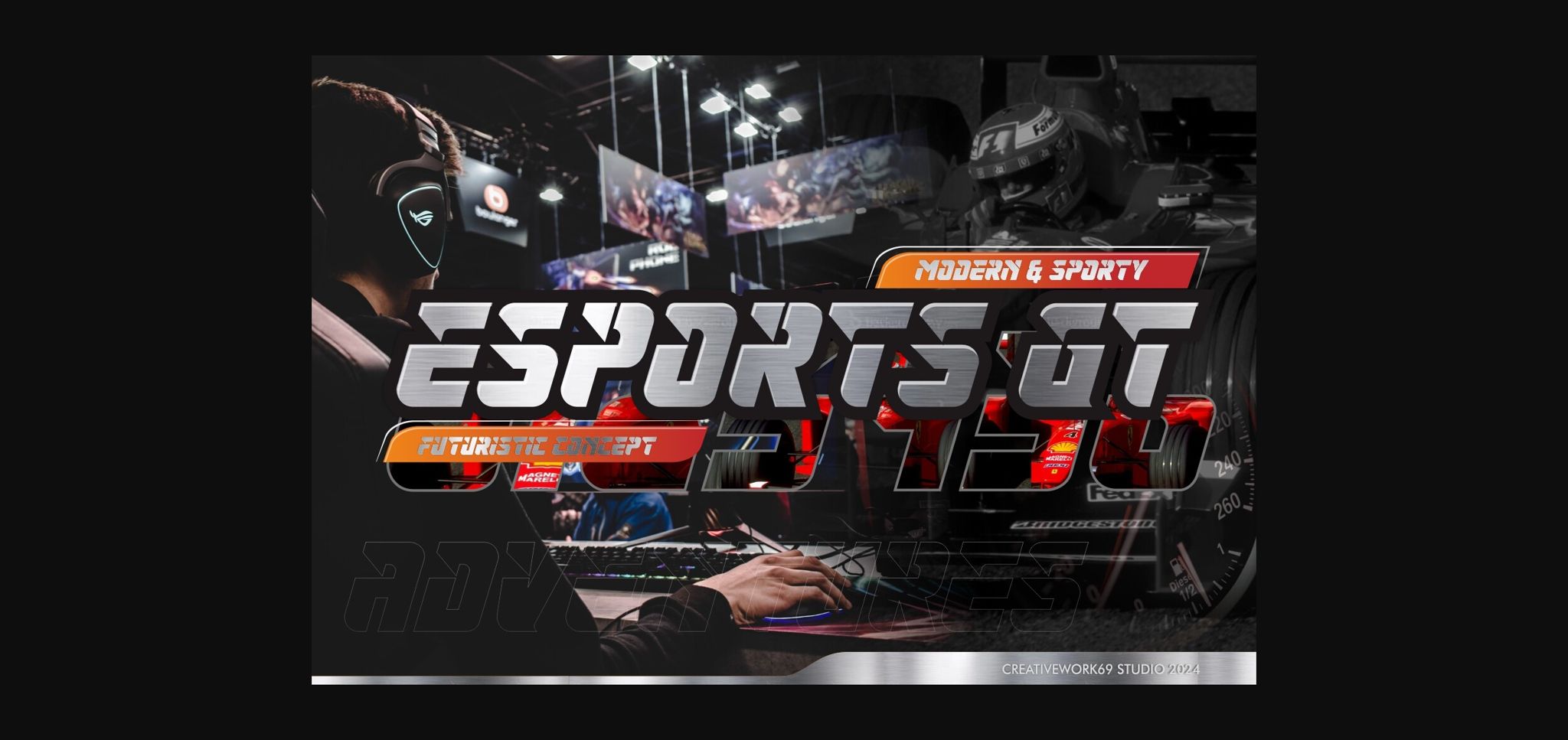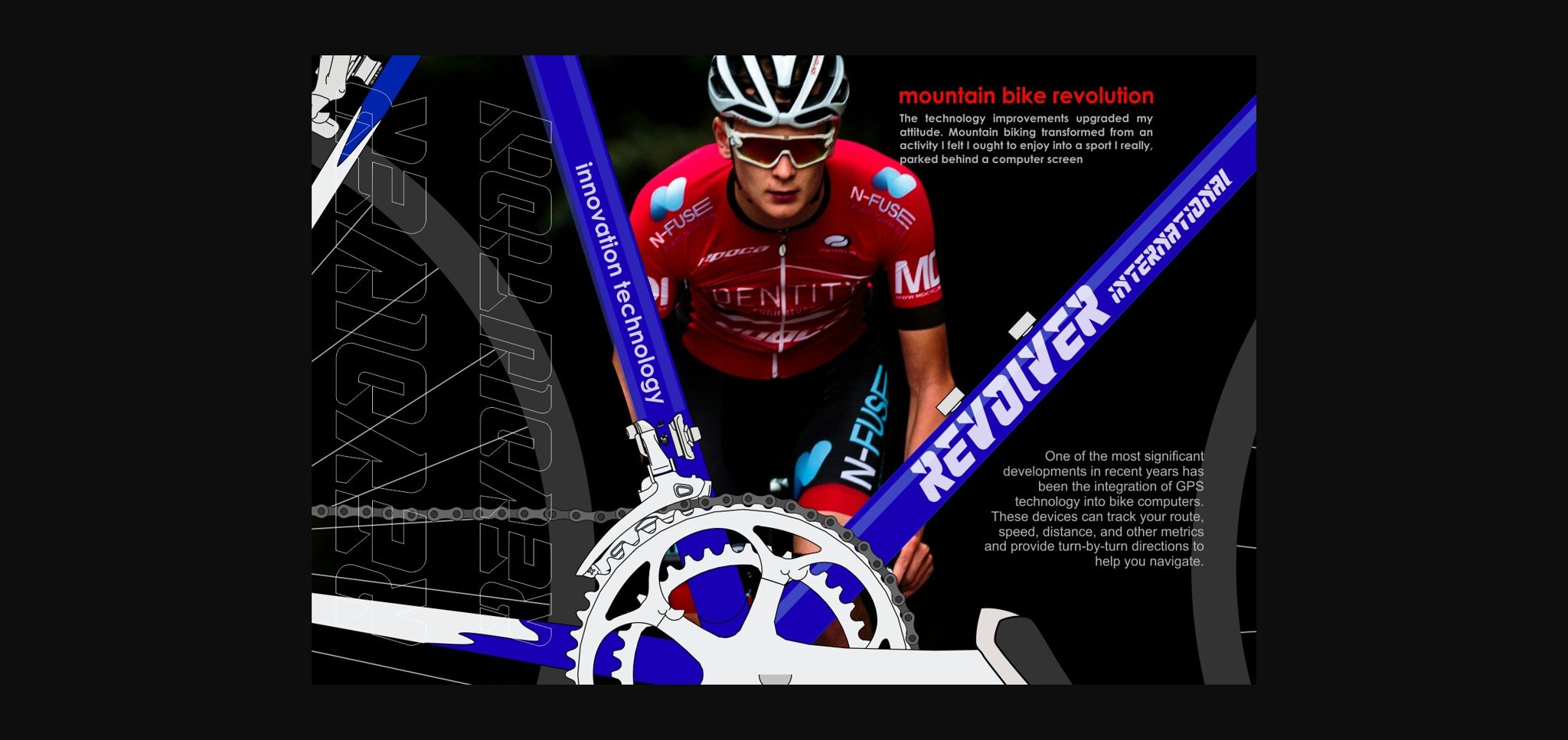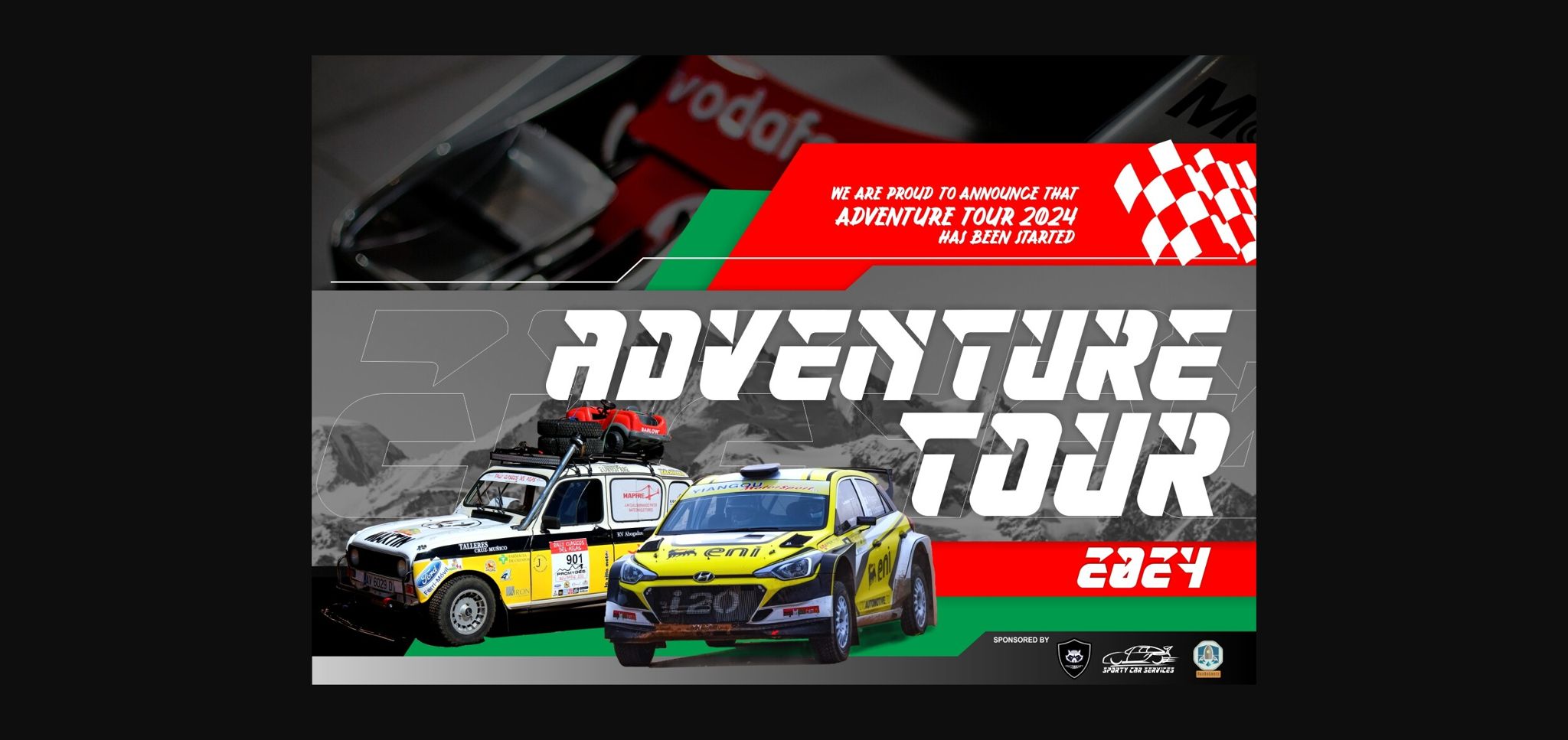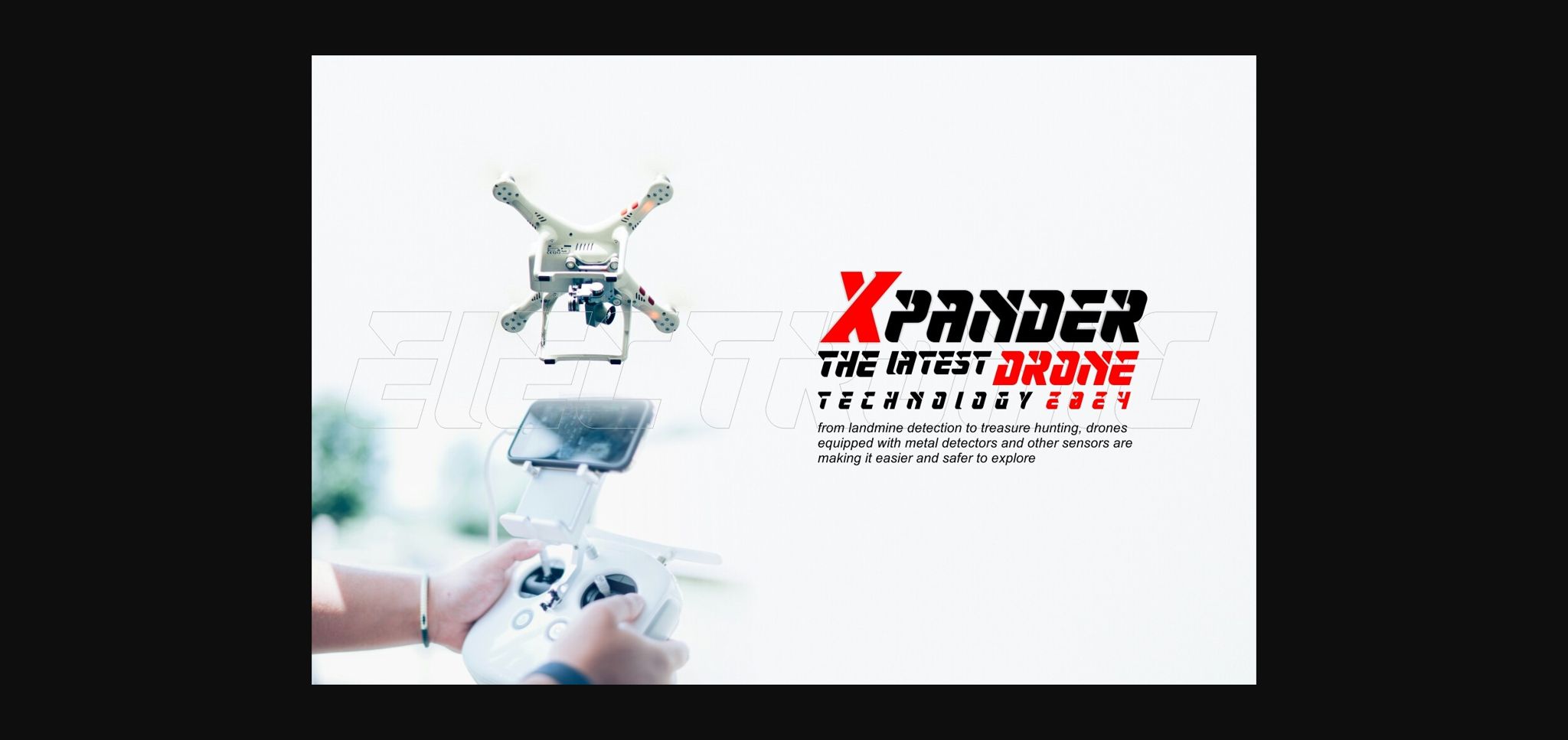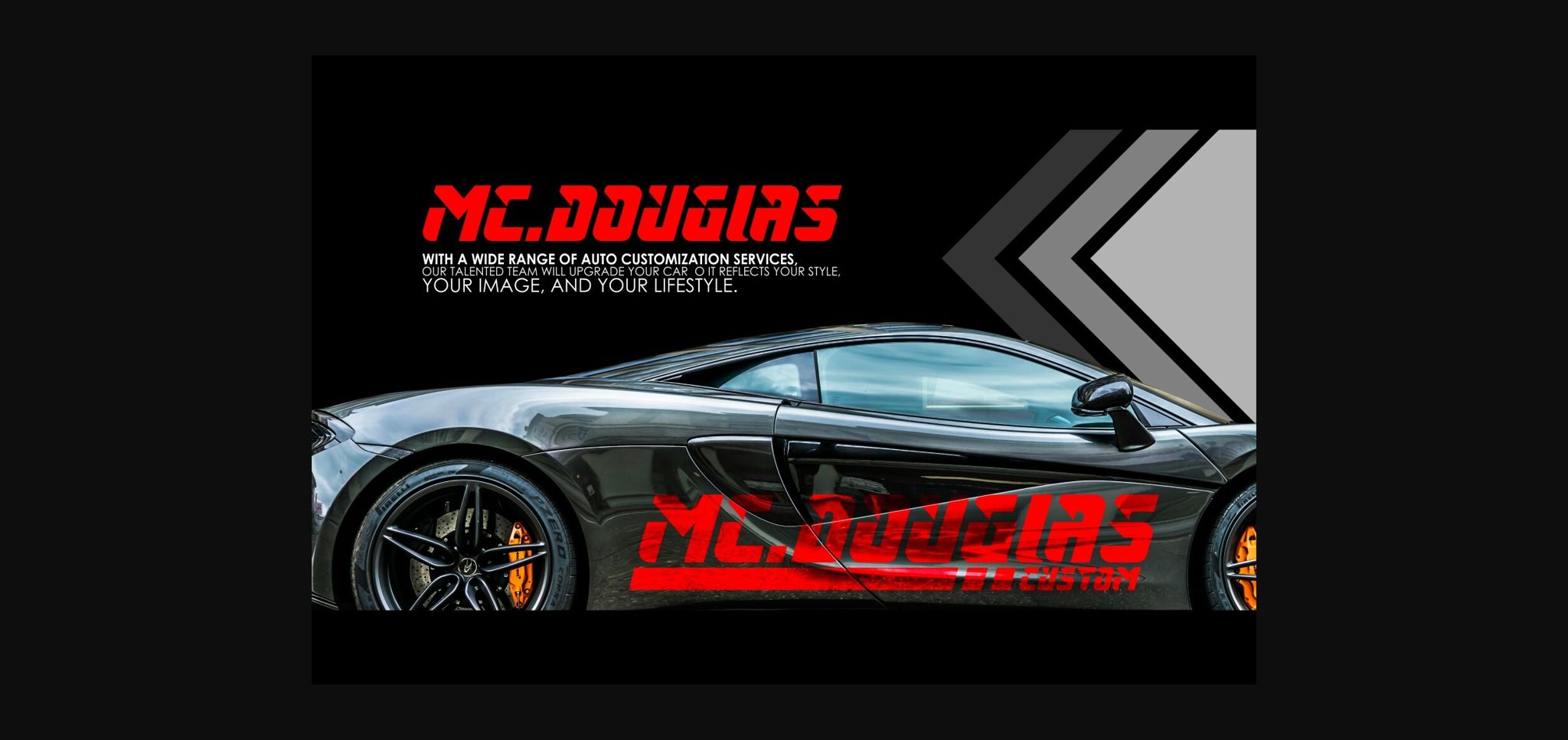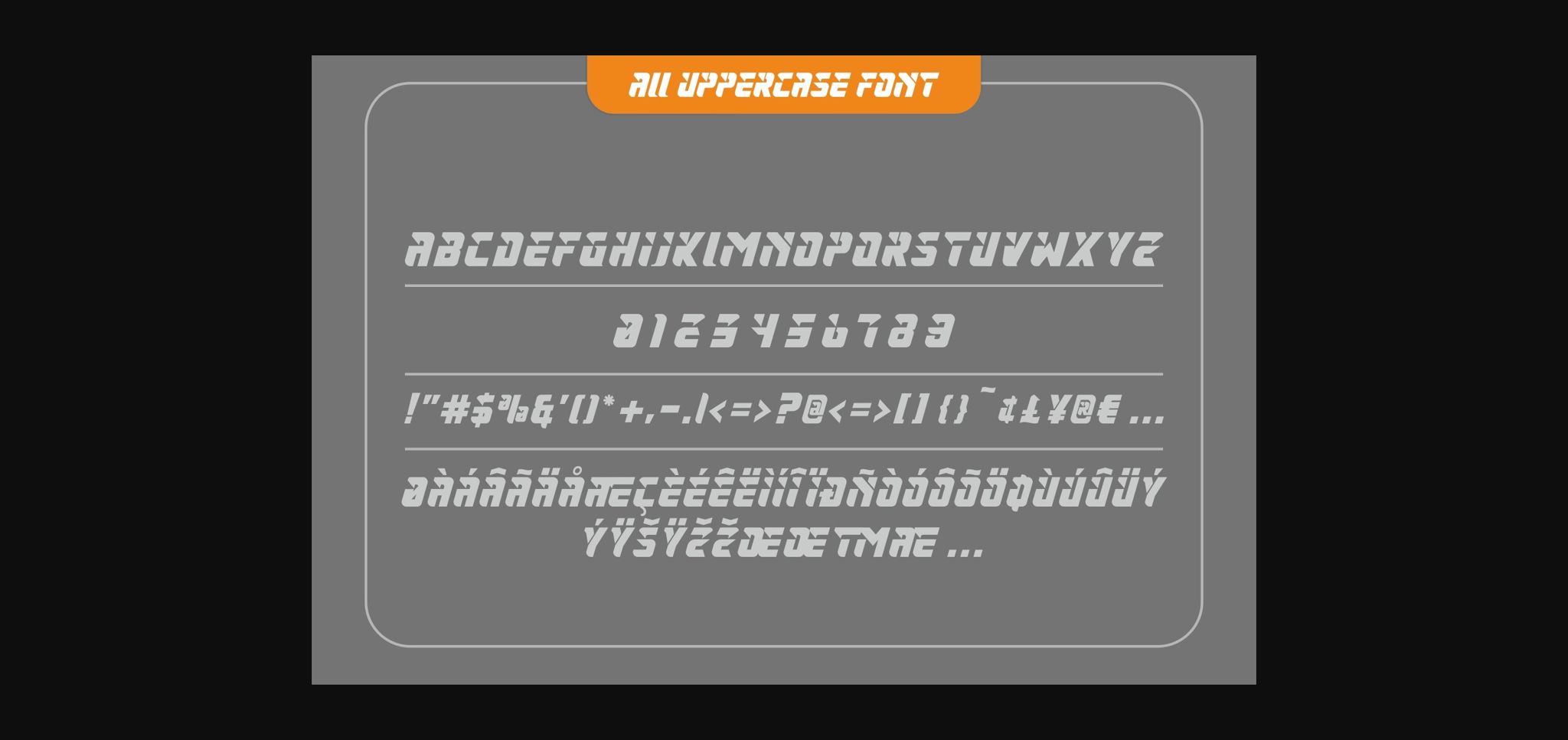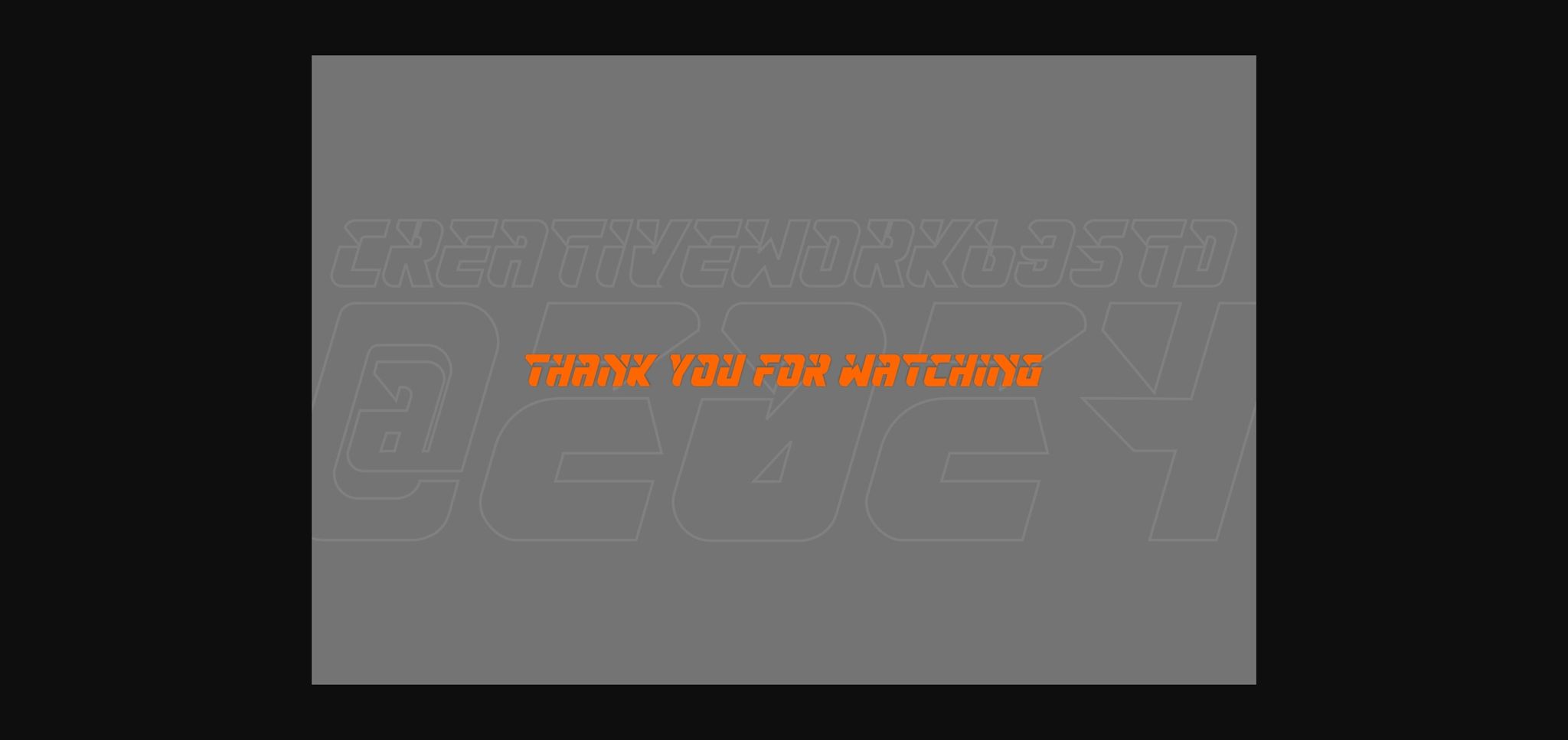
About Esports Gt Font
Esports GT is a dynamic and modern typeface that radiates a bold, sporty, and cutting-edge vibe. With its sharp edges, symmetrical curves, and sleek lines, it’s the perfect choice for branding products and logos across industries like automotive, electronics, and mechanics. This font injects a touch of sophistication into any design project with its robust and distinctive aesthetic. Harness the power of ESPORTS GT to amplify the visual allure and modern flair of your designs.